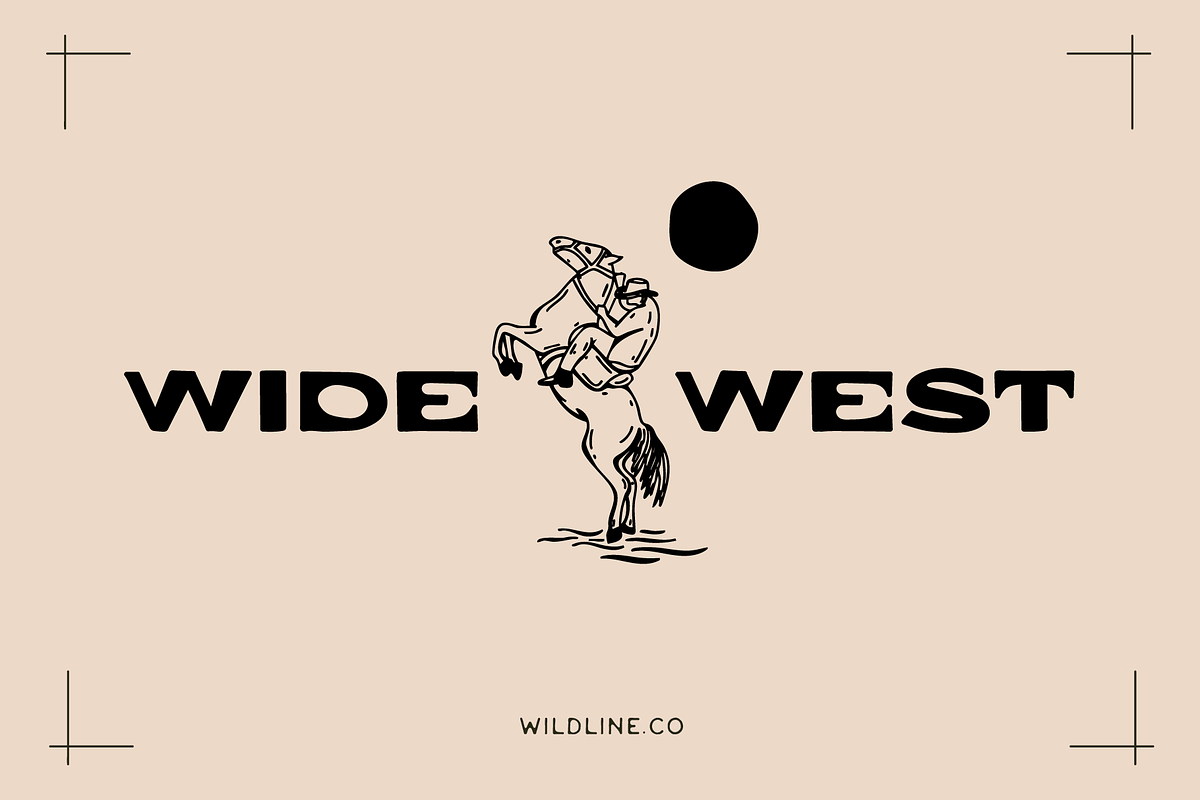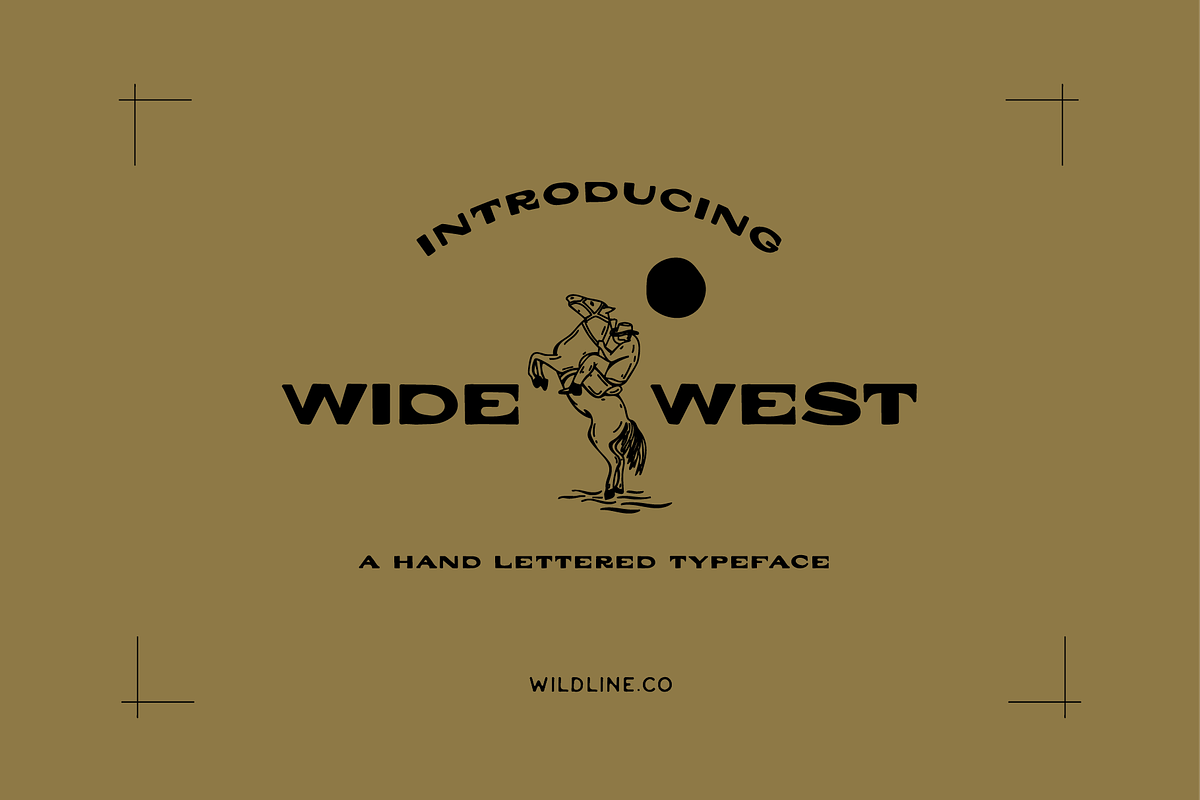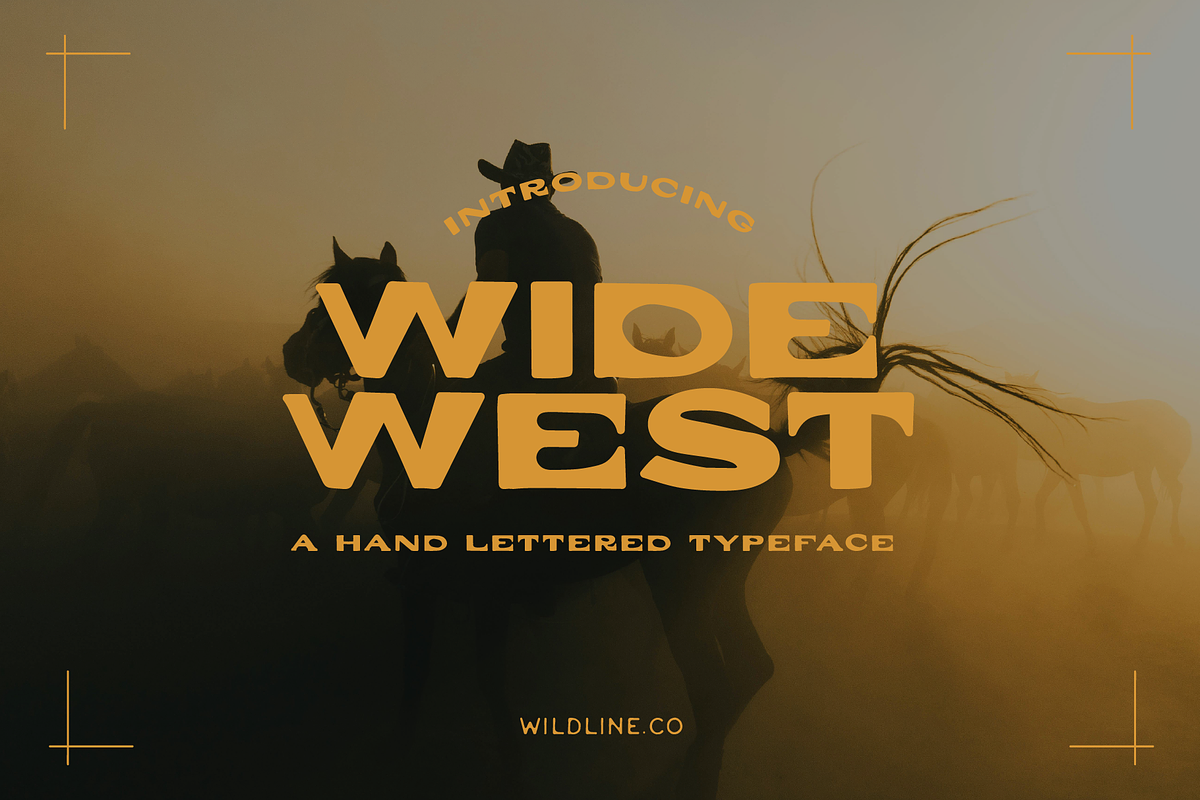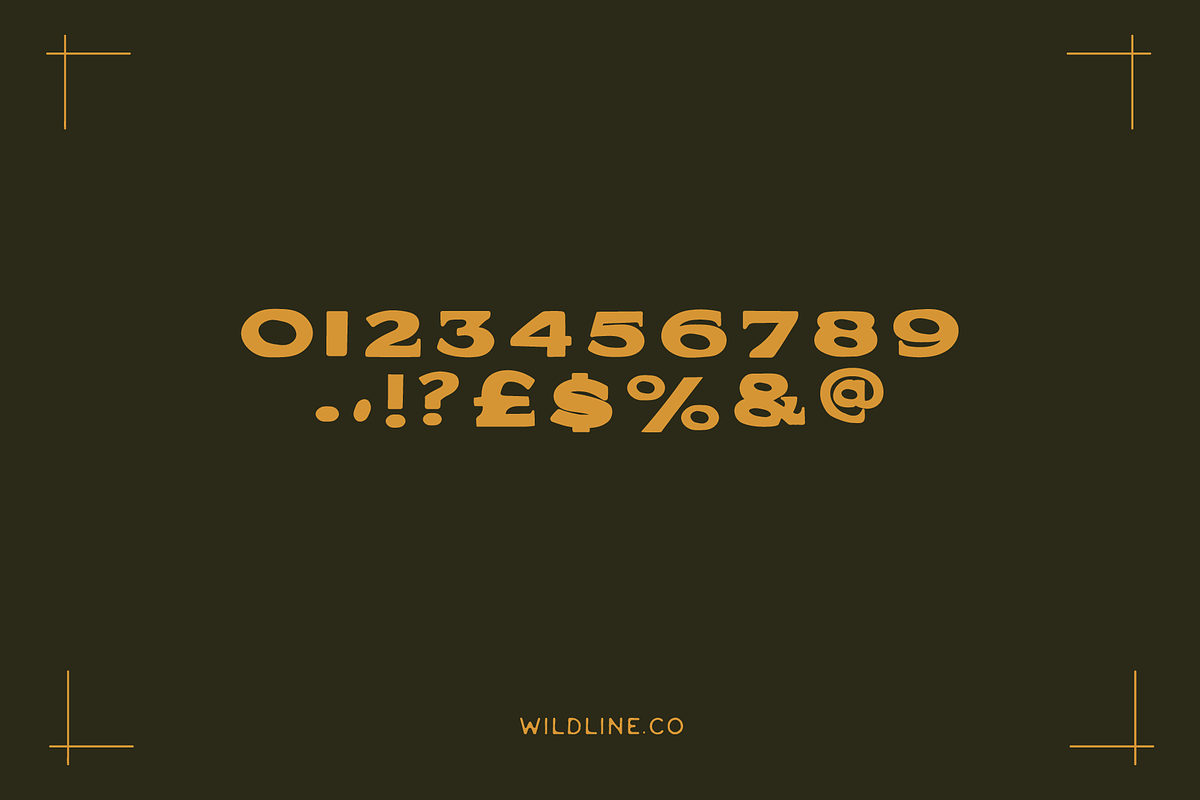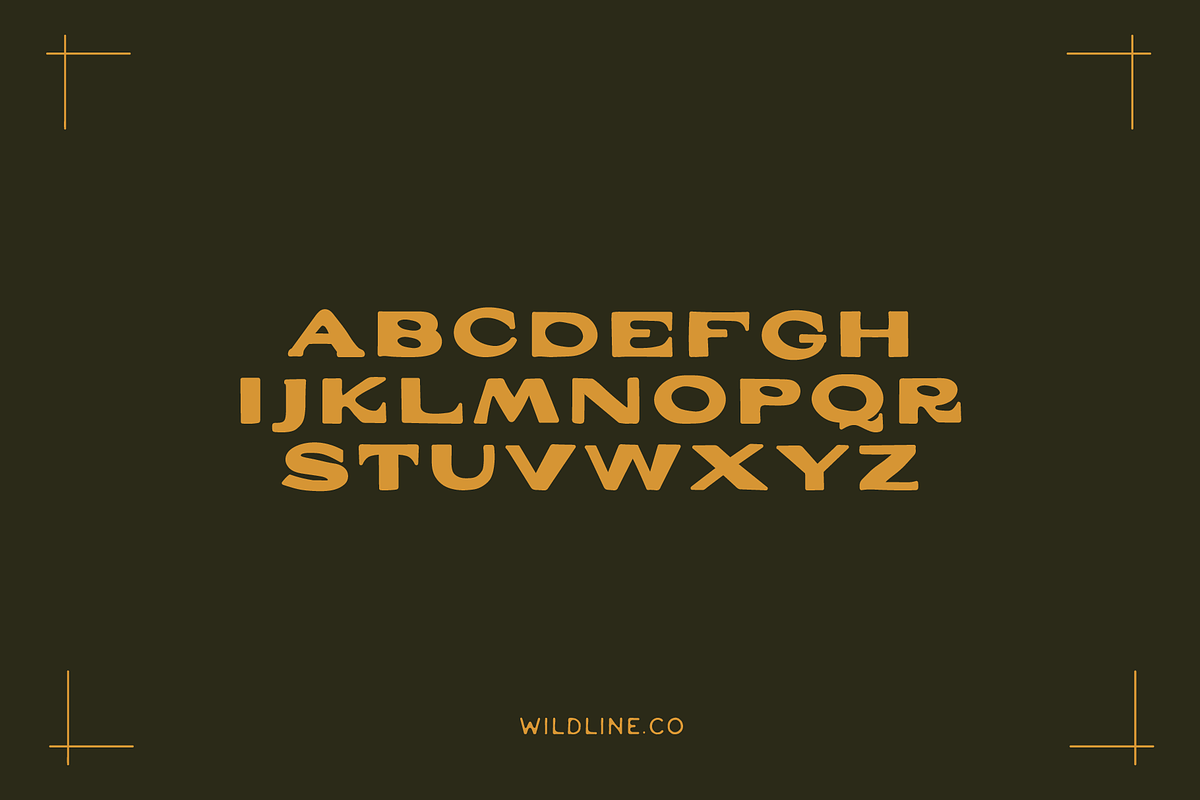
Wide West | A Hand Lettered Typeface
Wide West | Hand Lettered Typeface
Wide West is a bold, hand-drawn sans serif typeface inspired by vintage rodeo posters, sun-bleached saloons, and the kind of typography that looks just as good on a whiskey label as it does on your next design project. This ain't your average font; she’s wide, wild, and full of attitude.
Each letter has been crafted with a warm, human touch; perfectly imperfect.